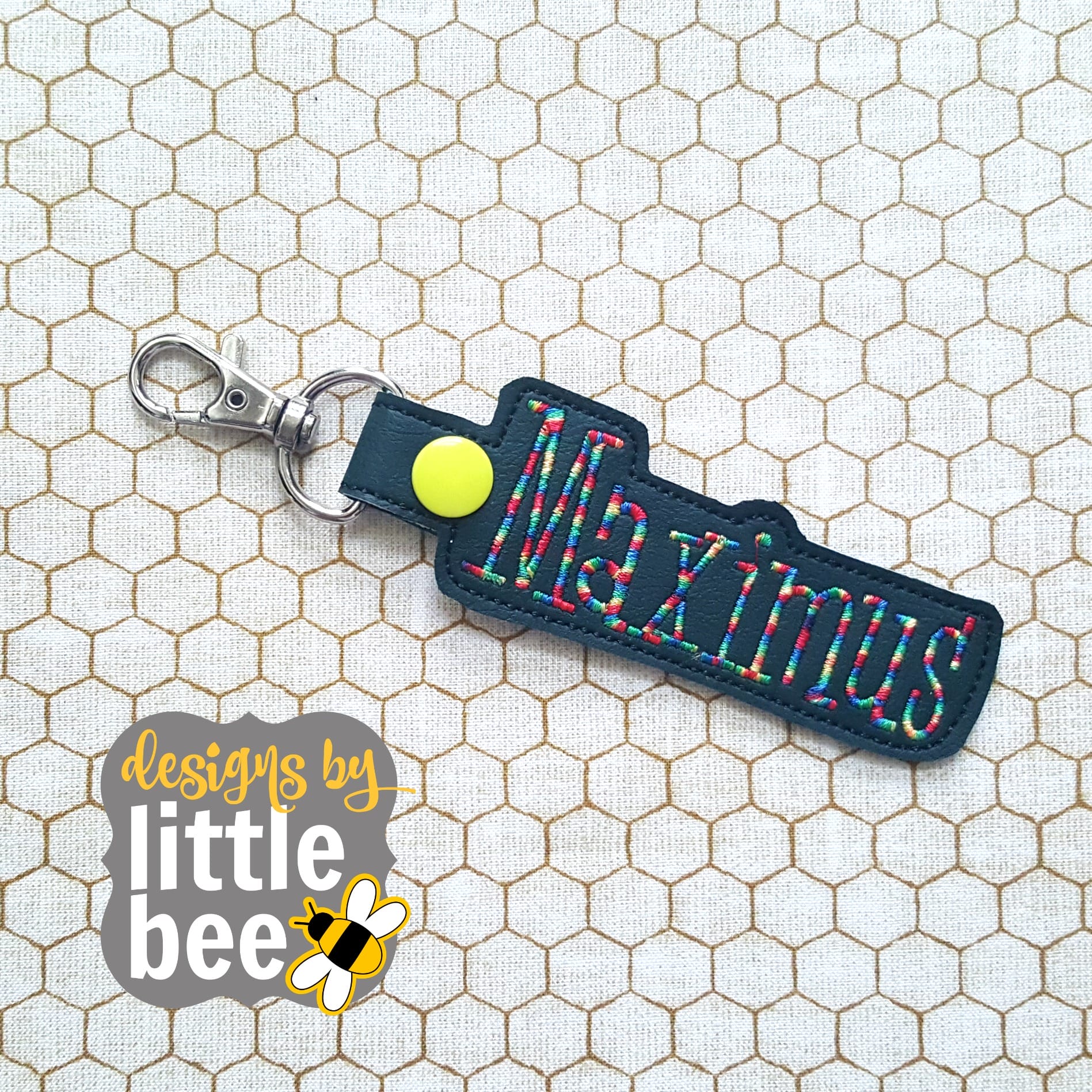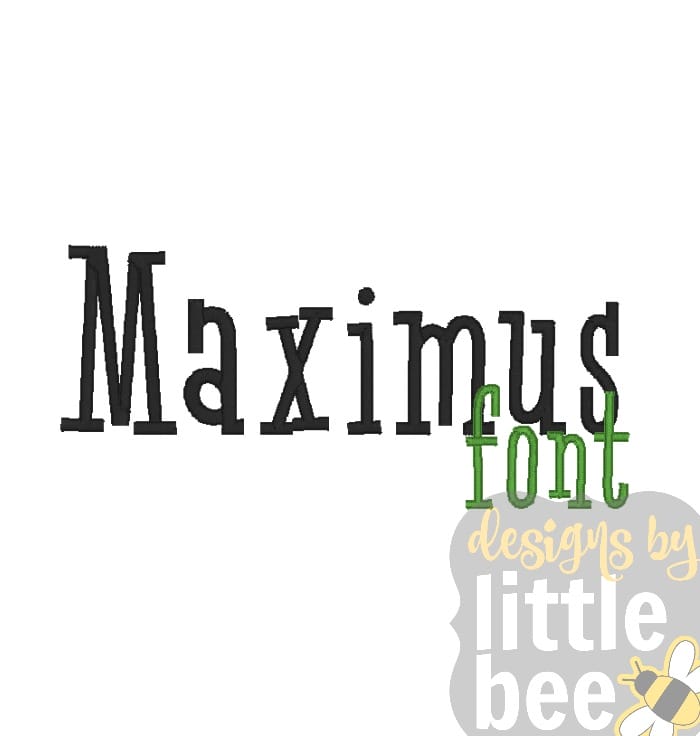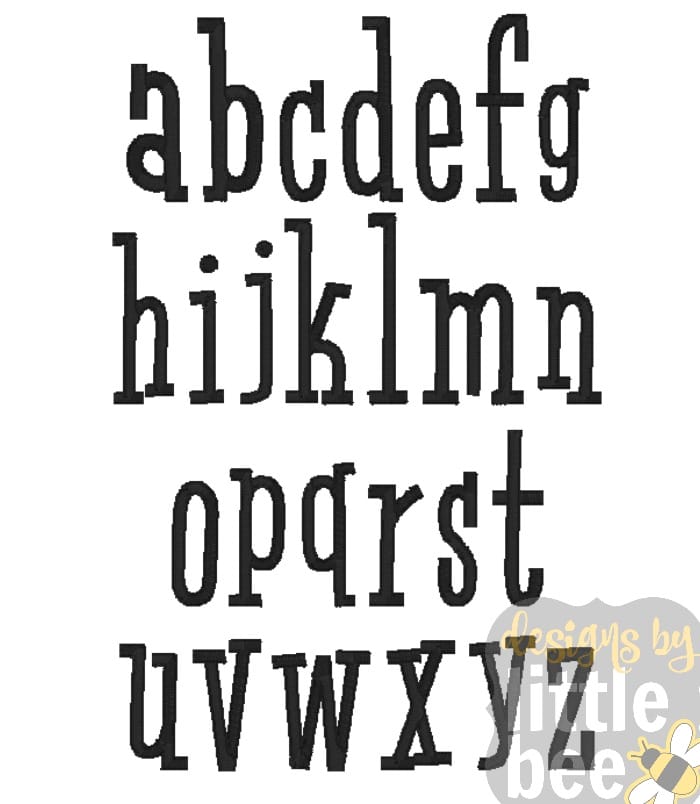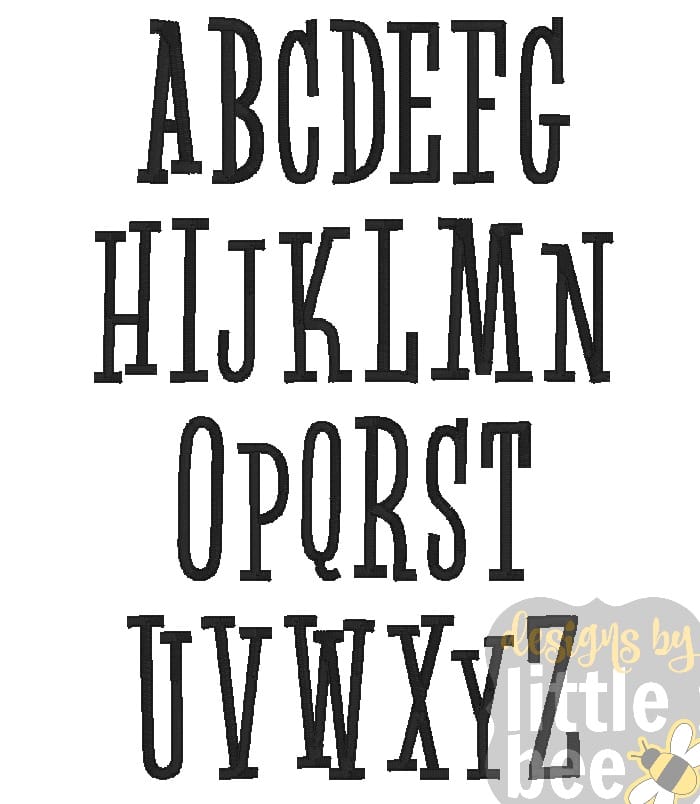
Maximus font bounces with joy right off your computer screen!
NOTE: Sizes of the letters in this font vary very slightly from one letter to the next to give a “bouncing” effect. If you do not like this, you can easily make tiny alterations using your software to even them out.